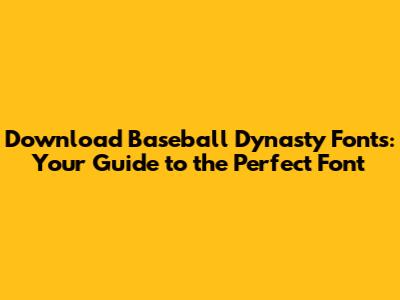
- Experiment: Try different fonts to see what looks best. Experiment with headlines and body text to create a balanced look.
- Customize: Experiment with different effects, like drop shadows or outlines, to enhance the look.
- Limit the number of fonts: Use a maximum of two or three fonts in your content to maintain consistency.
- Choose readable fonts: Make sure your fonts are easy to read, especially for body text.
- Consider contrast: Use contrasting fonts for headlines and body text to make your content pop.
- Maintain consistency: Use the same fonts across all of your content to establish a recognizable brand.
Hey guys! Ever wondered how to supercharge your Baseball Dynasty experience? Well, one of the easiest and coolest ways is by downloading the perfect fonts! I'm talking about fonts that capture the essence of the game, fonts that make your dynasty write-ups pop, and fonts that generally make everything look a whole lot cooler. This guide is your ultimate playbook for finding, downloading, and using those fonts. We will cover everything from finding the right font, and what types of fonts are best suited to the game, to how to install them, and how to get them working in your favorite apps. Let's get this show on the road and dive right in!
Why Fonts Matter in Baseball Dynasty
Alright, so you might be thinking, "Why should I care about fonts?" I get it. It seems like a small detail, but trust me, it makes a huge difference. Think about it: you spend hours meticulously crafting your baseball dynasty story, right? You're setting up the draft, making trades, and tracking stats. You need a presentation that is as cool as your content, or it will be hard to impress your readers. The first impression is extremely important to attract your readers. Fonts can significantly impact your whole reading experience. A well-chosen font enhances readability, adds personality, and makes your content more engaging. A bad font can do the exact opposite; it can be difficult to read and can make your work look amateurish. A great font can take your Baseball Dynasty write-ups from boring to brilliant. It can transform the way you present your content and it can help to create a cohesive brand. If you want people to enjoy reading your posts, choosing the right fonts is super important. The right fonts are like the perfect uniform for your team – they give your work a polished and professional look. It shows your readers you put effort into your content. This attention to detail will keep them coming back for more.
The Impact on Readability and Engagement
Let’s talk readability first. A clear and easy-to-read font makes it effortless for readers to digest your content. You don't want them struggling to decipher the text, right? A font that is too small, too ornate, or just plain weird will discourage them from reading further. Fonts like Arial, Helvetica, and Open Sans are great because they are clean and easy on the eyes. They make it simple for anyone to follow along with the play-by-play of your dynasty. Engagement is the key ingredient, and a visually appealing font contributes to that. When the text is attractive, readers are more likely to spend more time with your content. Imagine the difference between reading a thrilling game recap in a clear, modern font versus struggling through some clunky, outdated style. Which would you prefer? So, choosing the right font isn't just about aesthetics; it's about optimizing the reader's experience. It makes your dynasty content more enjoyable, easier to follow, and keeps your readers engaged.
Enhancing Brand and Personality
Fonts also help to create and enhance your own personal brand and personality within the Baseball Dynasty community. Consider your dynasty like a team. The font is the team's logo. You want something that reflects the tone and style of your content. Do you want to be classic and traditional? Choose a font that reflects those traits. Are you going for a modern, high-energy vibe? A sleek, bold font will do the trick. By carefully selecting your fonts, you convey a sense of professionalism, consistency, and a strong sense of identity. Over time, your font choices become synonymous with your dynasty, making your work instantly recognizable and memorable. When readers see that font, they’ll think of your dynasty, and the amazing content you've produced. This consistent branding helps establish trust and credibility, and encourages a following. It is important to know that fonts are a powerful tool for self-expression. It is an awesome way to showcase your creativity and passion for baseball dynasty. Get creative and have some fun!